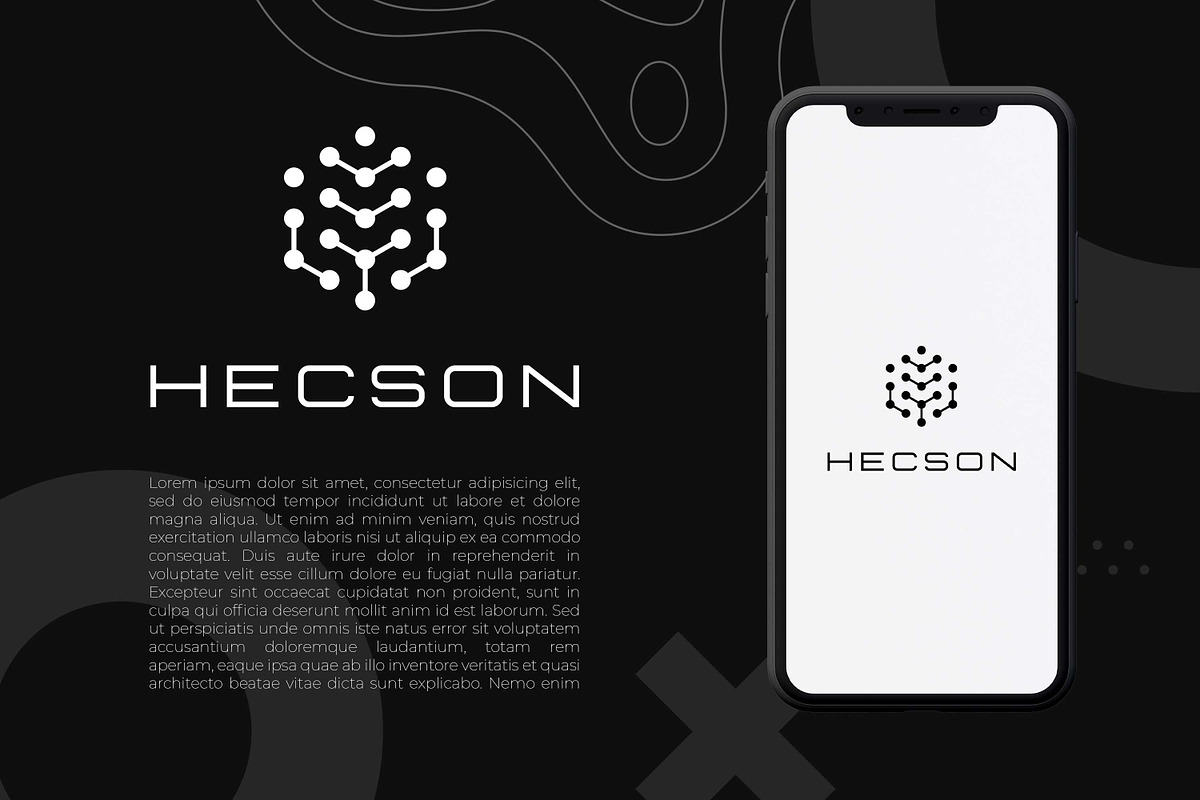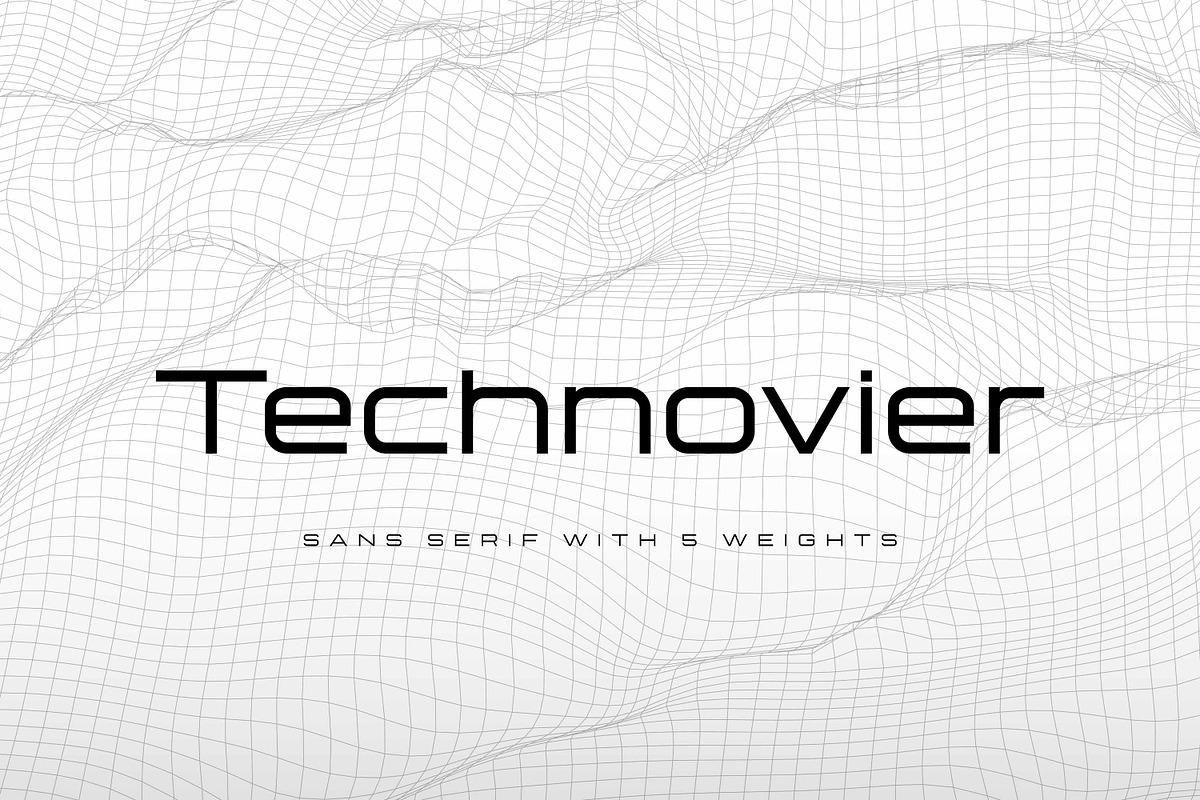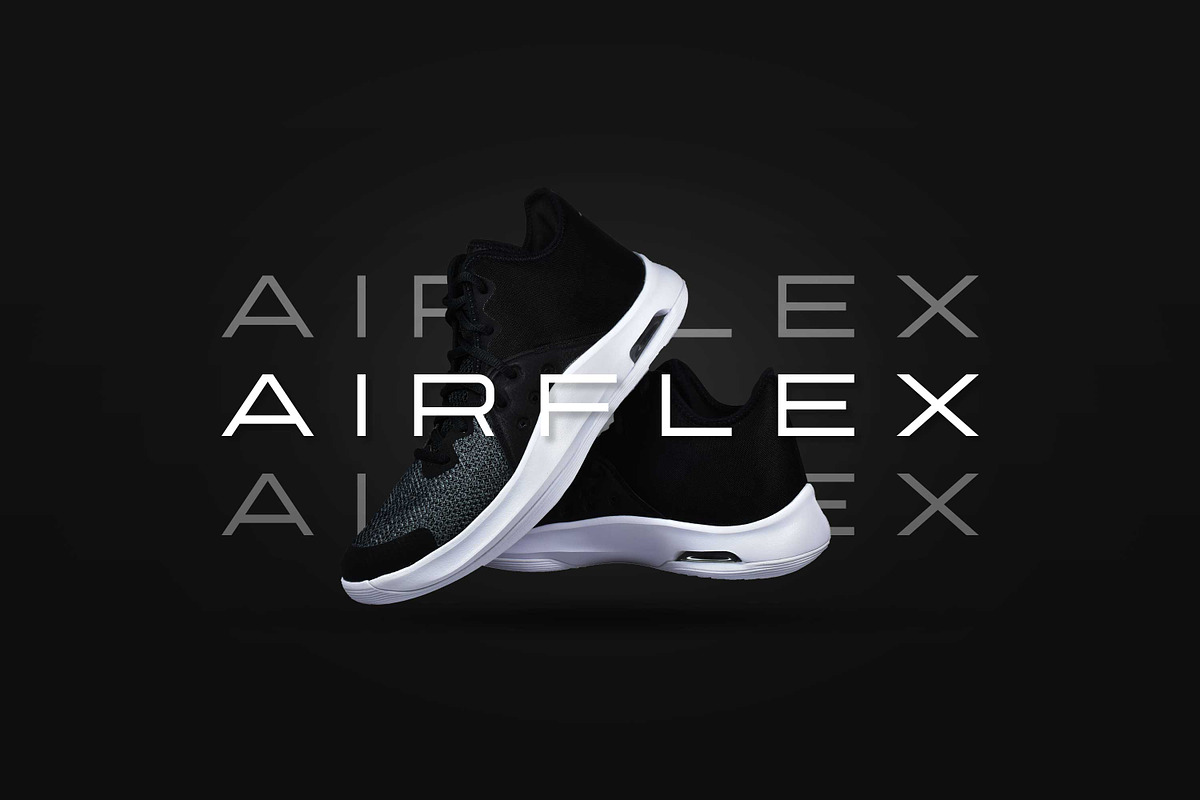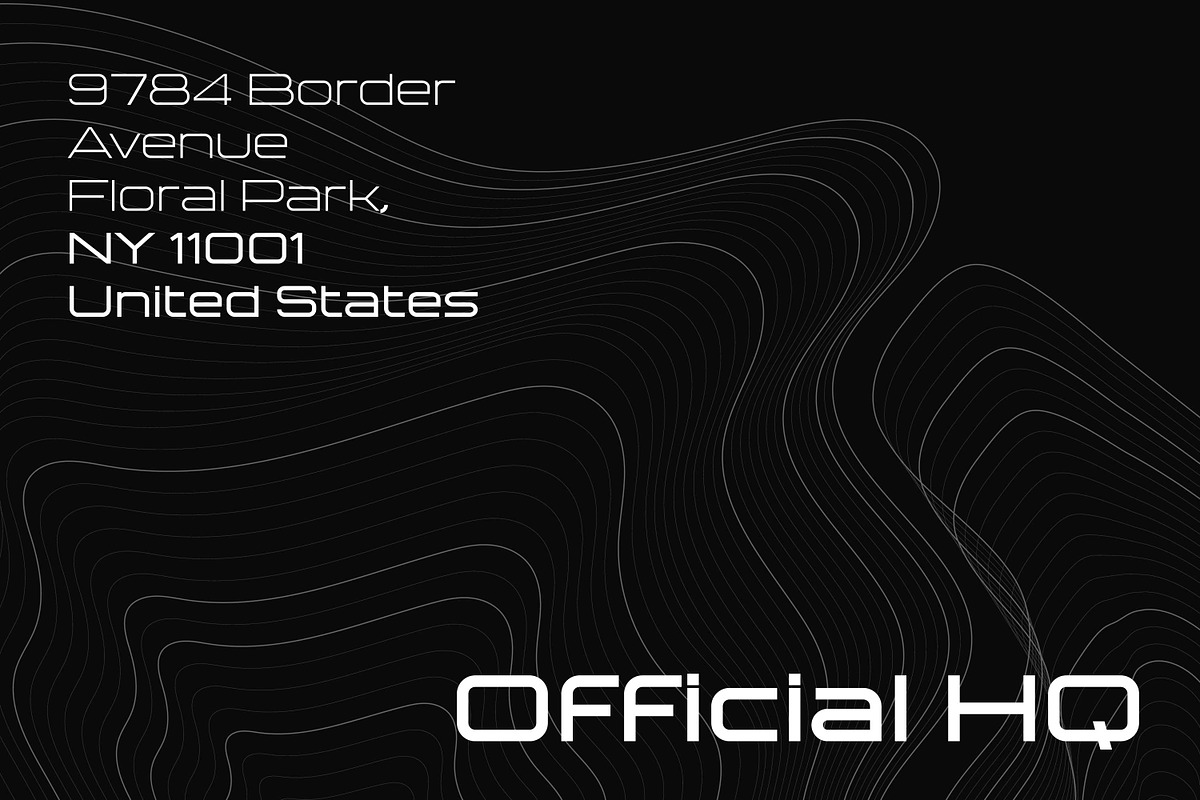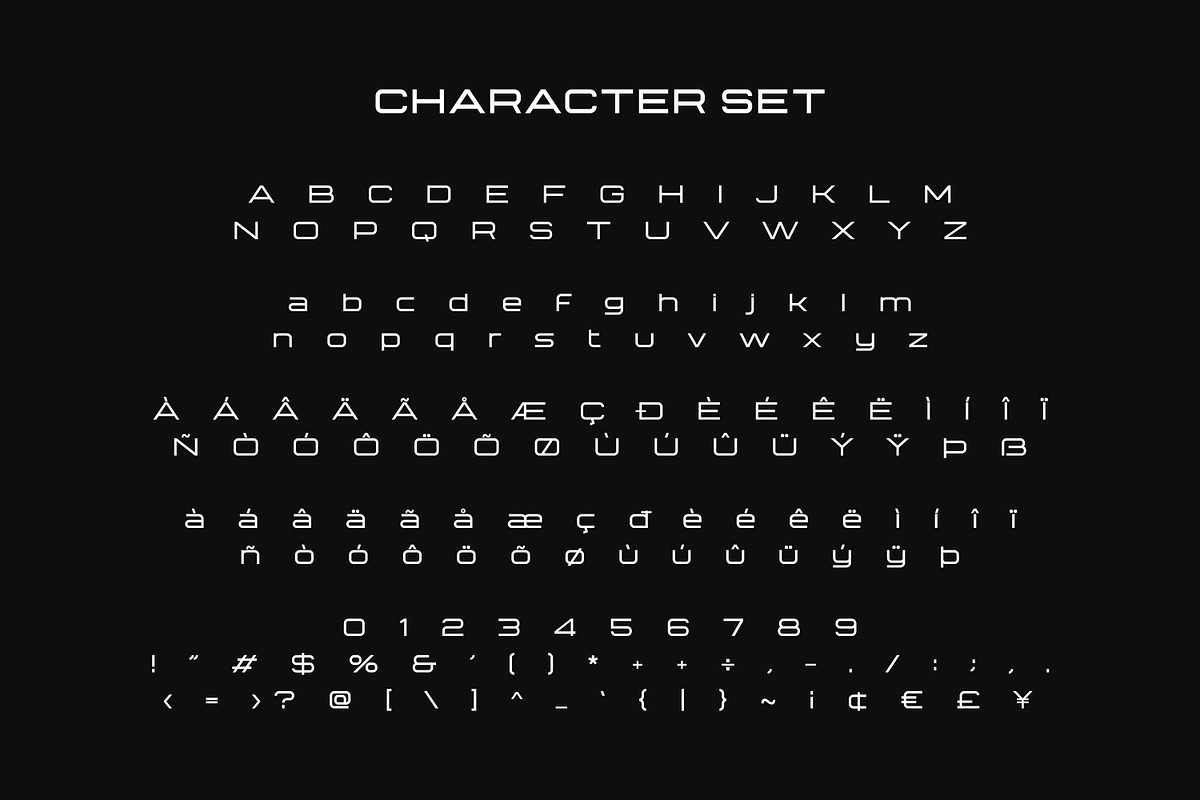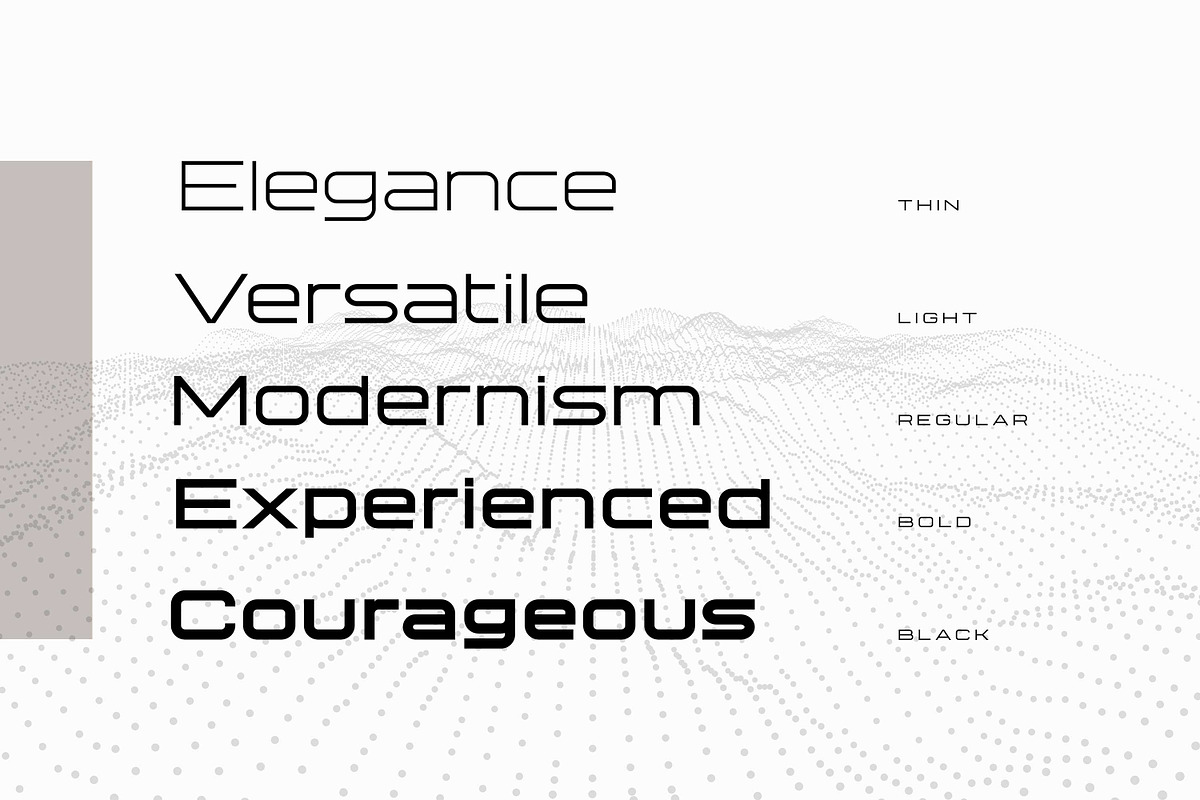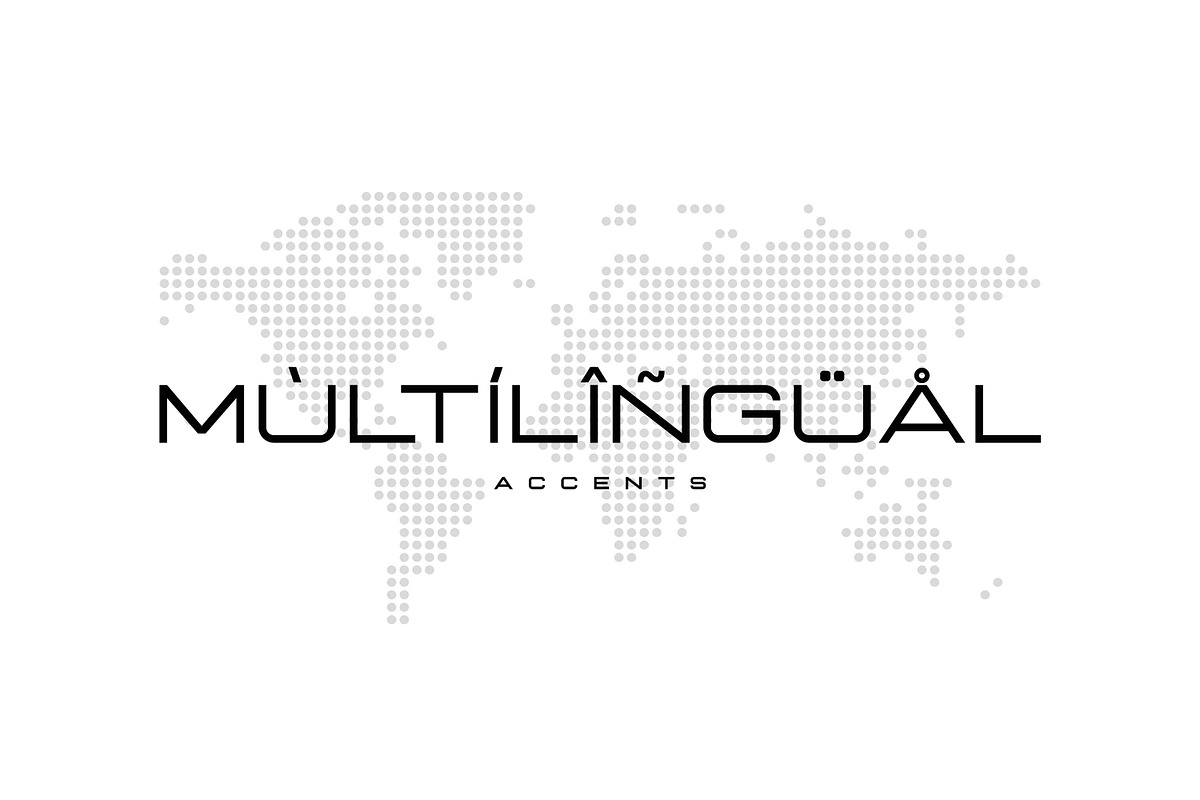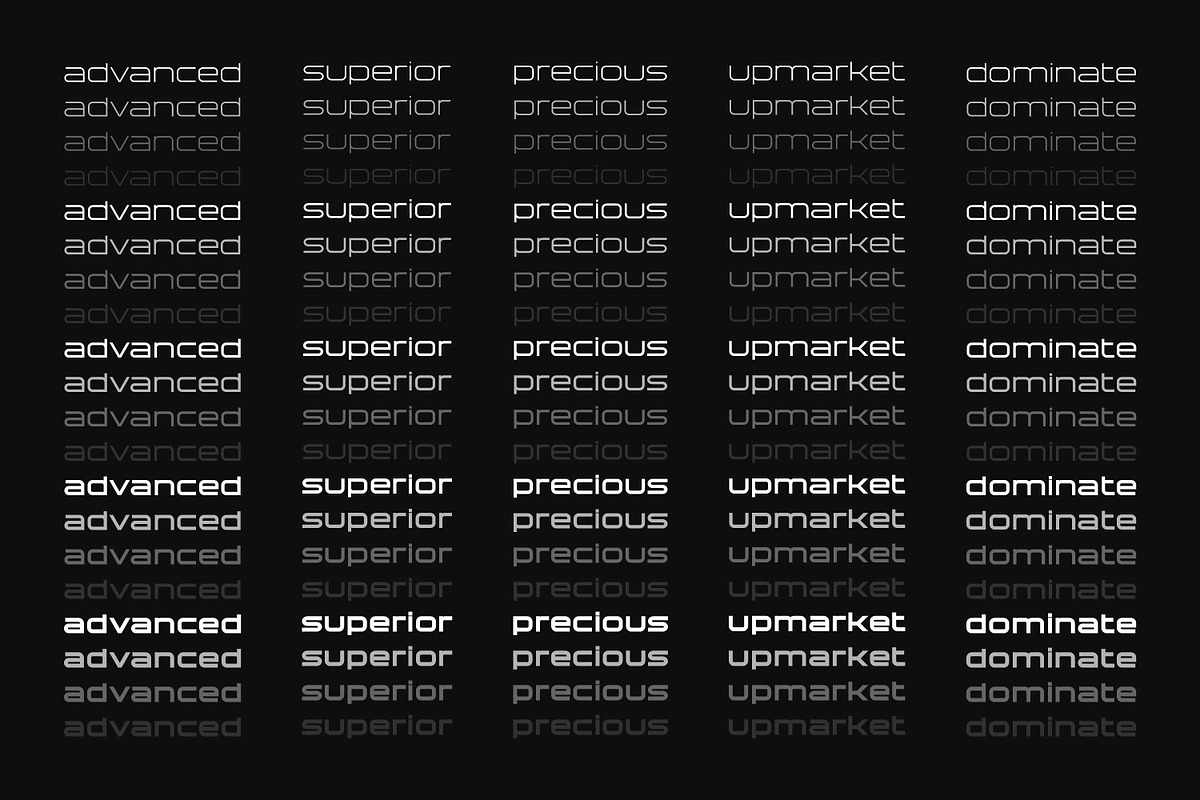
Technovier-Sans Serif With 5 Weights
Hello Everyone, Introduce our new collection, Technovier – Techno Sans Family famous logos of Technology and brands that have very strong characteristics, Technovier has 5 Fonts that allow you to get a job with satisfying results. very suitable for posters, t-shirt, packaging, branding, logotype and more.
Technovier font with strong and challenging nuances. very suitable for the title, typography, clothes, Poster, magazines, brochures, packaging,Websites and much more for your design needs, making your designs more modern and professional